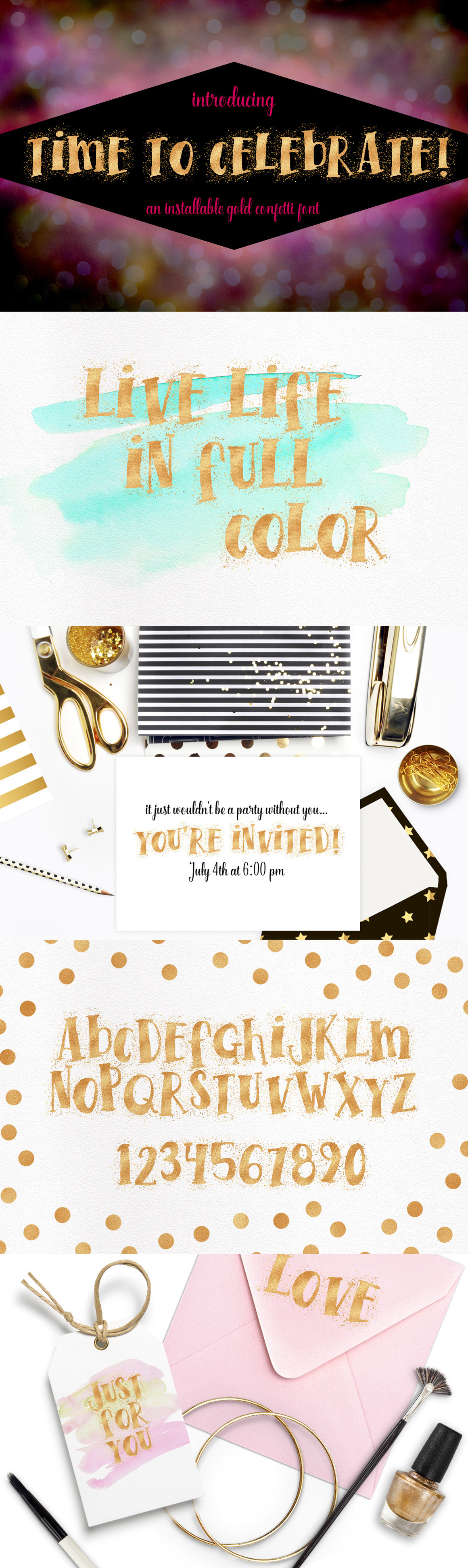
Time To Celebrate Gold Confetti Font
Have you ever wished you could have metallic letters in your project, and not have to take the time overlay your type or drag and drop each letter individually? You don't have to wait any longer!
Introducing TIME TO CELEBRATE, an installable metallic gold font with confetti embellishment. With the proper software, you can easily type this hand-crafted font and add a really fun look to your digital pieces within seconds!
With your purchase you will receive a downloadable zip file of TIME TO CELEBRATE. It is an upper and lower case mixed font that was hand painted on paper with watercolors. It was then given it's metallic and confetti effects digitally, and processed through a new technology that allows you to type in metallic gold! You will receive 26 letters, 10 numbers, and a small sampling of basic punctuation. You will have lots of fun watching the confetti overlap as the letters interact with each other!